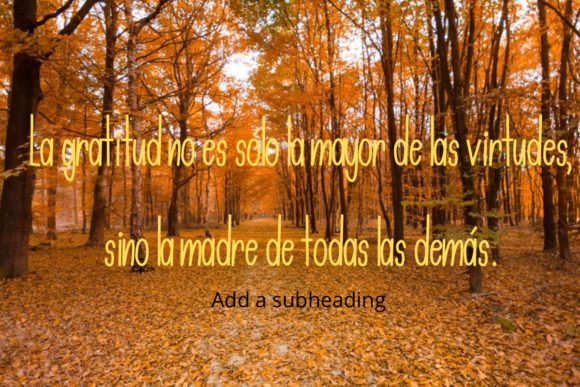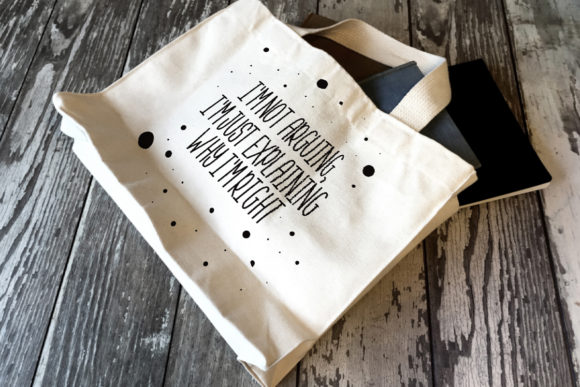
High Heels Font
db-ku.com - Script & Handwritten -- High Heels is a skinny handwritten font. It has a clean, tall and smooth vibe and it will be a hit for any design that you want to add it to.